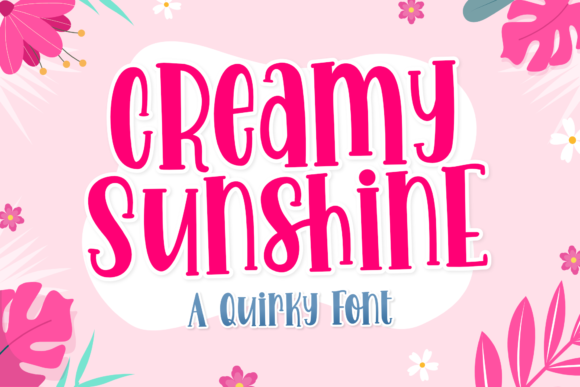
The Perfect Font for a Bright Idea
You know that moment when you’re brainstorming a new design and everything just clicks? The colors, the typography, the overall vibe – it all comes together in a way that feels truly magical. For designers, those moments are the best part of the job. But sometimes, all it takes is the right font to bring your ideas to life. That’s where the Creamy Sunshine Font comes in – a fun and playful display font that’s sure to add a touch of sunshine to your designs.
With its PUA encoded glyphs and swashes, you’ll have endless possibilities for creativity and self-expression. Whether you’re working on a branding project, a marketing campaign, or simply a personal art piece, the Creamy Sunshine Font is the perfect tool to help you bring your vision to life.
- Unique Characteristics: The Creamy Sunshine Font features a unique, hand-drawn design with subtle texture and a warm, sunny feel, making it perfect for creative and artistic projects.
- Font Weight: The font comes in a single weight, but its unique design and texture make it versatile enough to be used for both light and bold text.
Designer Review: Creamy Sunshine Font
Overall, I’d say the Creamy Sunshine Font has its charm. Let’s start with what works well: ✨ The font’s unique blend of modern and vintage styles creates a beautiful aesthetic that’s perfect for projects that need a touch of warmth and nostalgia. The script-like curves add a level of sophistication that’s hard to find in other fonts. Additionally, the large character set ensures that you’ll have plenty of options for your design needs.
- Unique blend of modern and vintage styles
- Script-like curves add sophistication
- Large character set for design flexibility
For optimal results, use Creamy Sunshine Font for designs that require a warm and inviting feel. It’s perfect for:
– Branding and logo design
– Invitations and event materials
– Food and lifestyle blog designs